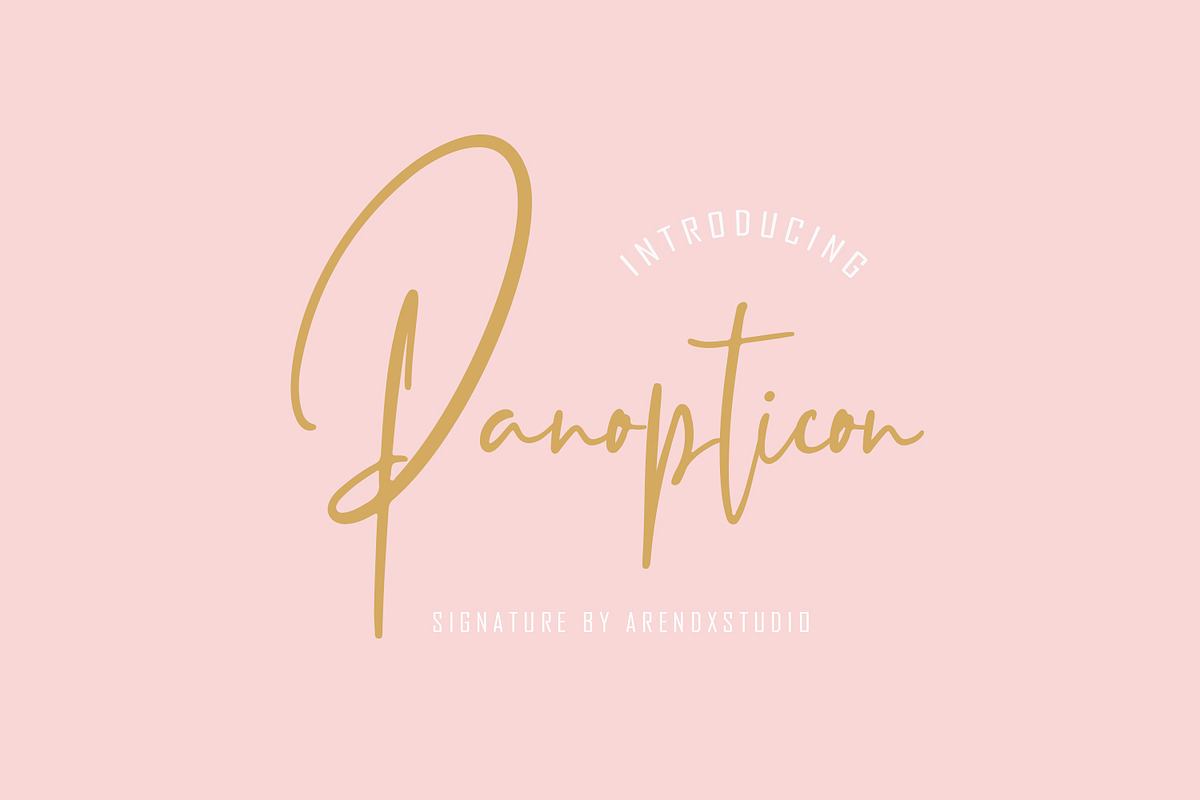
Elegant, refined, and effortlessly stylish—Panopticon - Signature Font Free Download is a handwritten typeface that captures the essence of modern sophistication. With its smooth strokes and natural flow, it's the perfect choice for branding, logos, invitations, blog headers, and upscale packaging.
This font gives your designs a personal, signature-like touch, ideal for creatives who want to leave a lasting impression. Whether you're working on a minimalist brand or a luxury product, Panopticon delivers that classy, handwritten aesthetic with ease.